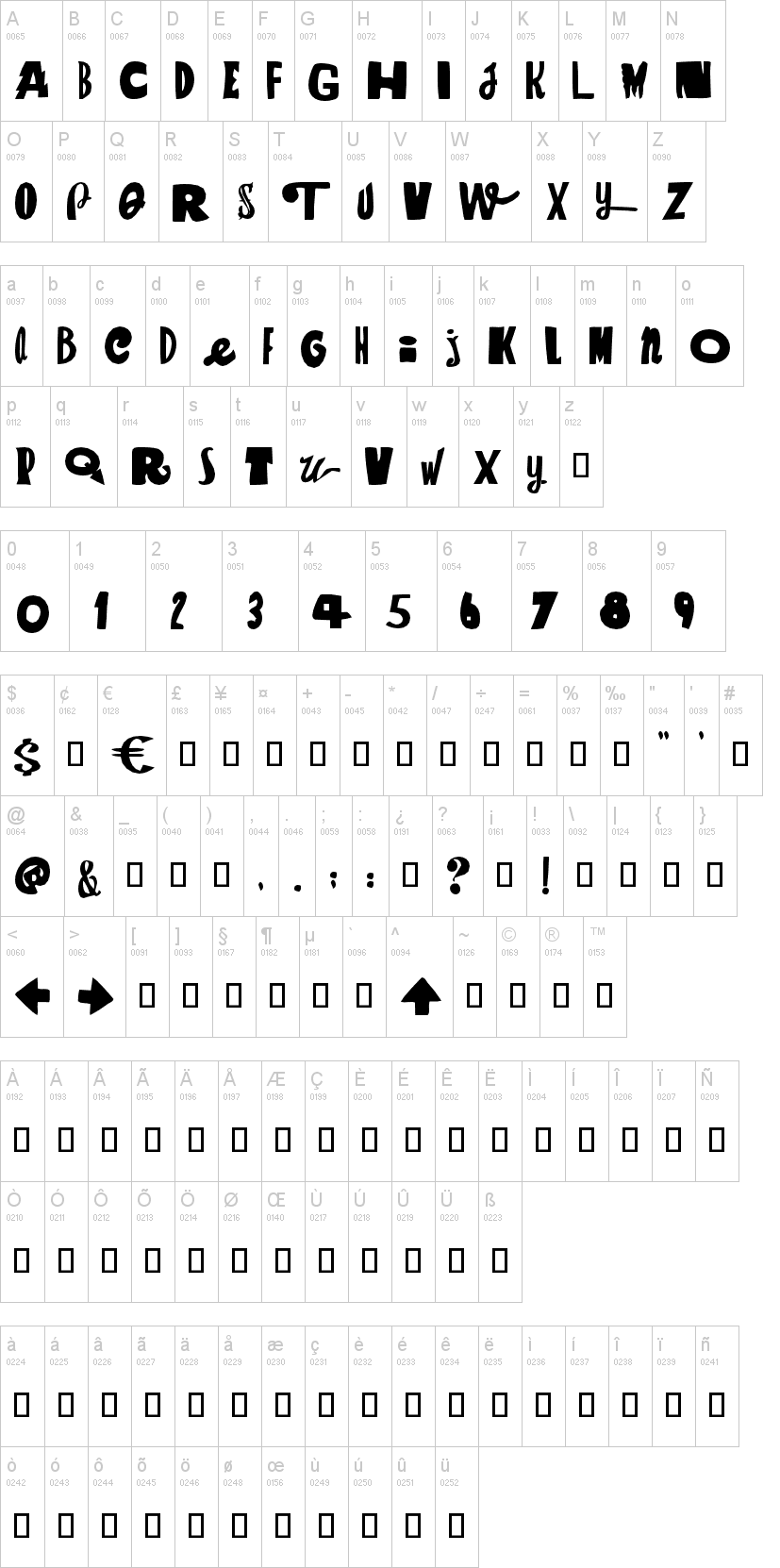
Шрифт Parrannoyed
This font is a hodgepodge of type, inspired by various poster artists. Caps and lower case are all different characters and shapes. Designed to be played around with and coloured. Enjoy.